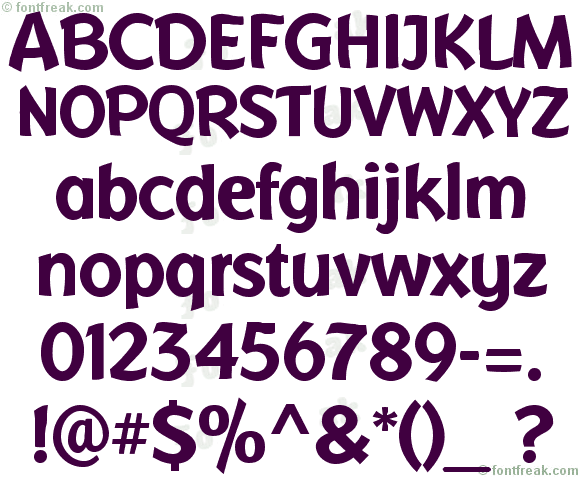
ResPublica
About ResPublica
ResPublica, crafted by Cybapee Creations, is a striking display font that combines playful aesthetics with a modern flair. This font features a unique blend of rounded and angular forms, making it stand out in various design contexts. The stroke weight is moderately bold, providing a substantial presence while maintaining legibility. The contrast in the letterforms is subtle yet effective, with a harmonious balance that draws attention without overwhelming the viewer. The spacing is well-considered, ensuring that each letter is distinct, which is particularly advantageous for headings and titles.
This versatile font is ideal for a variety of applications. It shines in promotional materials, making it perfect for campaigns or advertisements that require a fresh and engaging approach. Additionally, ResPublica is an excellent choice for event flyers, as its eye-catching style can instantly attract attention. Its playful yet professional demeanor also makes it suitable for restaurant menus, especially those aiming for a contemporary vibe. Furthermore, graphic designers can utilize this font for branding projects, where a distinctive typeface can help create a memorable identity.
The target audience for ResPublica includes graphic designers, small business owners, and content creators looking to enhance their visual projects. Whether used in digital media or print formats, this font is poised to elevate any design.
What truly sets ResPublica apart is its ability to convey a sense of creativity while remaining accessible. Its unique character invites engagement, making it a perfect choice for those who want to make a lasting impression. For anyone interested in enhancing their design toolkit, the ResPublica font free download offers an exceptional opportunity to incorporate this standout typeface into their work.